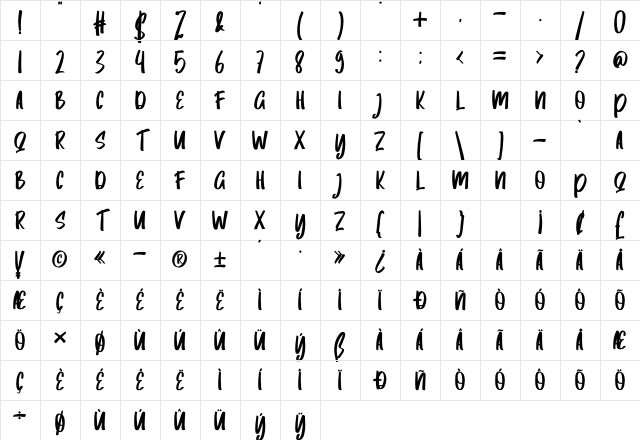
Tusrya Regular Free Font
Tusrya Regular
Designer: Skiiller studio - M irfan mahmudin
Design Context for Tusrya
Tusrya is a composed and adaptable typeface that performs quietly and consistently across a wide range of design contexts.